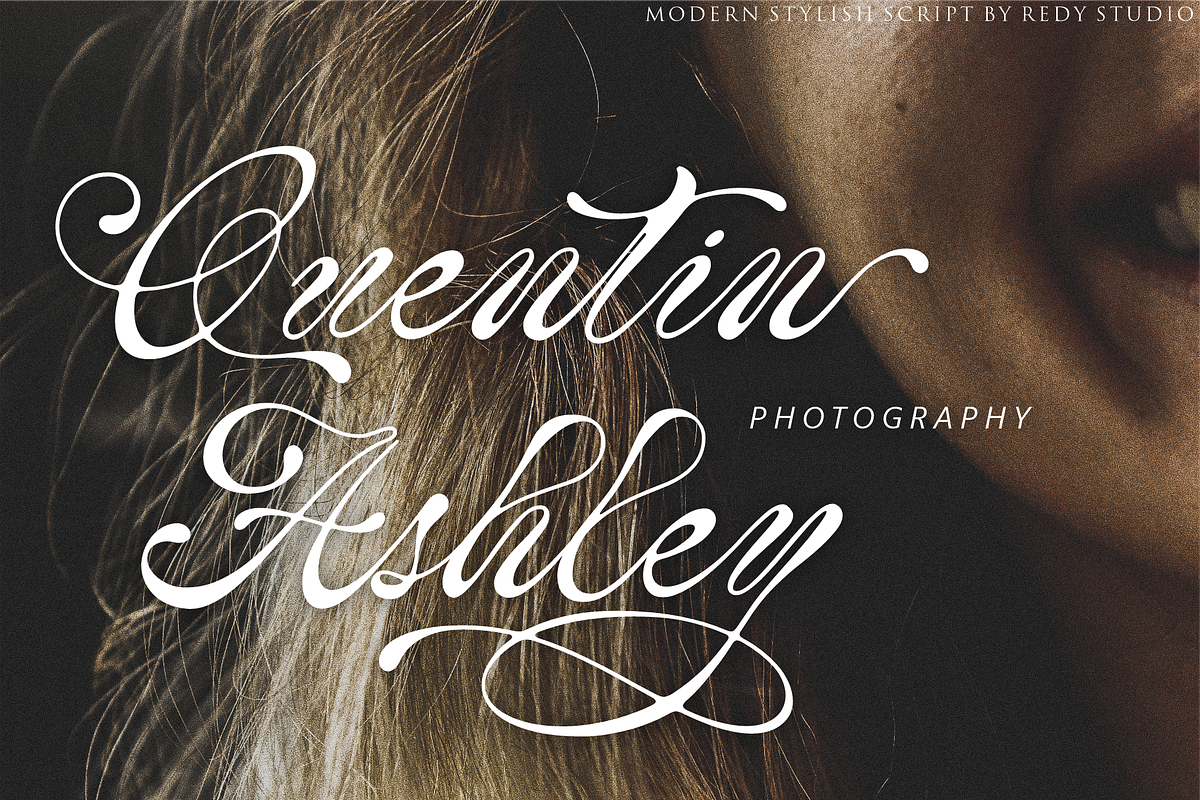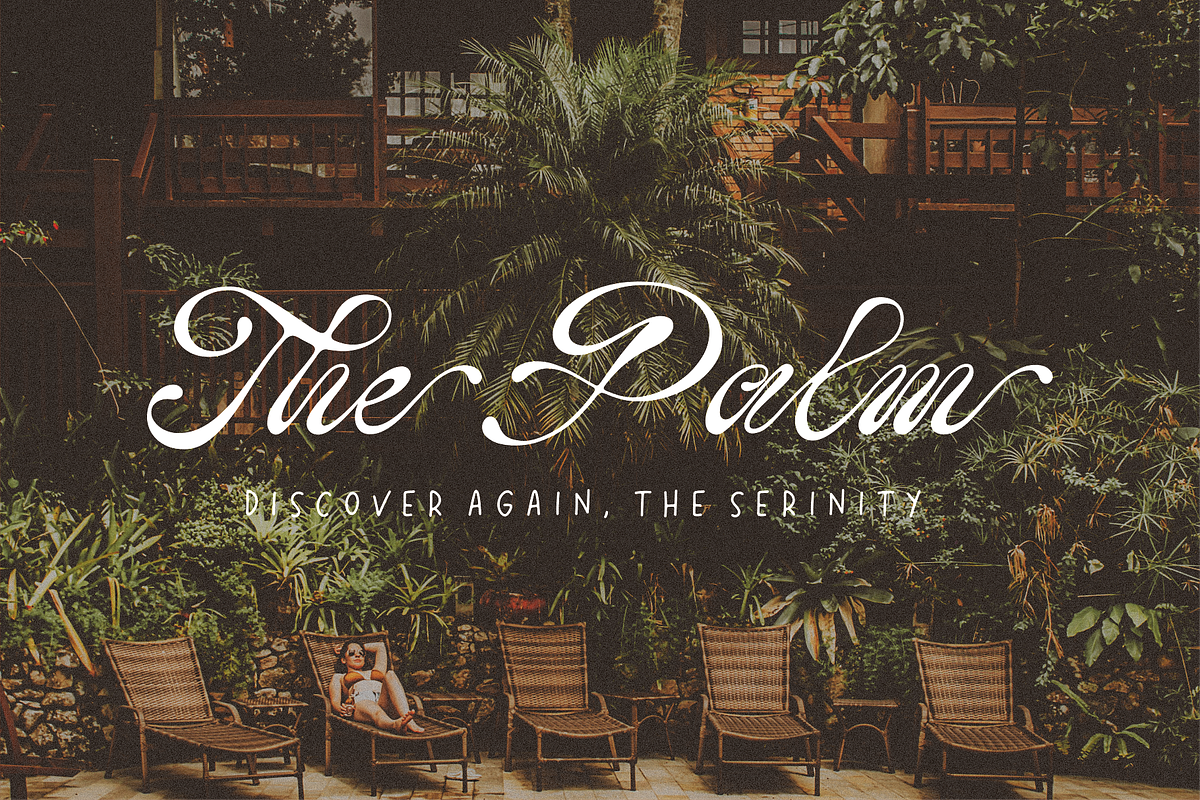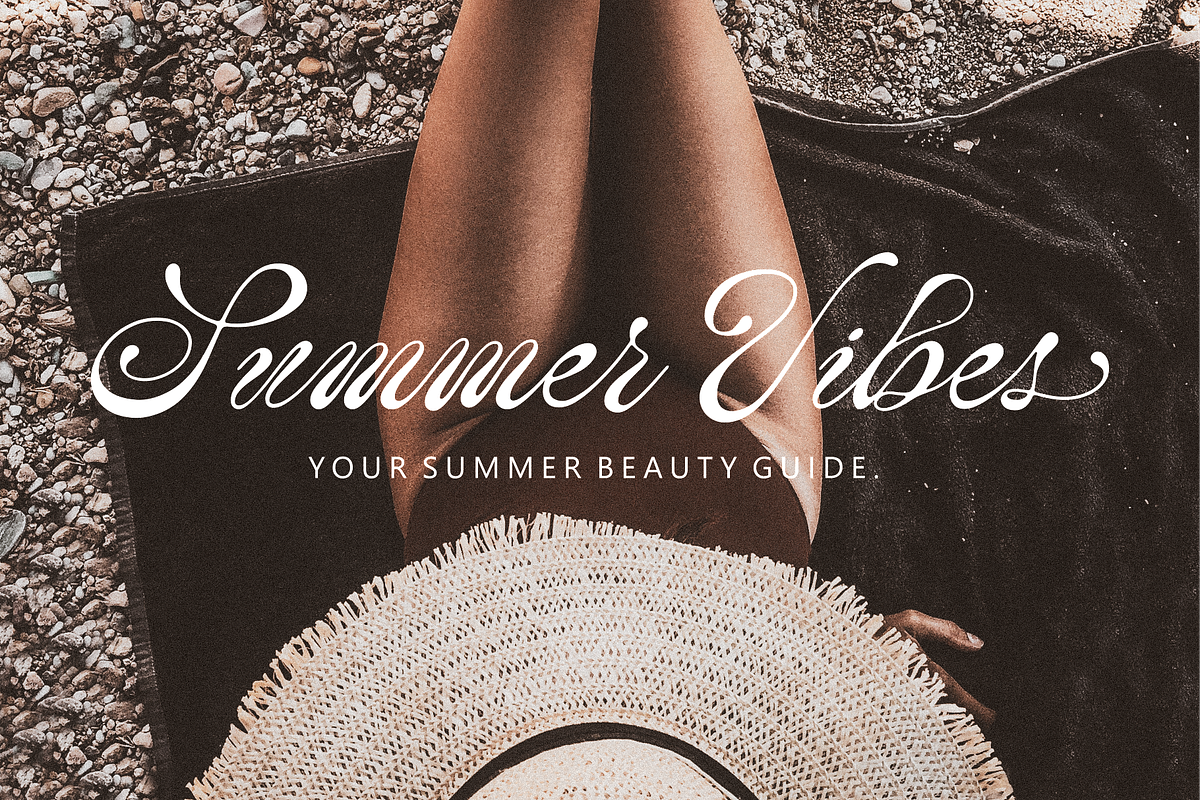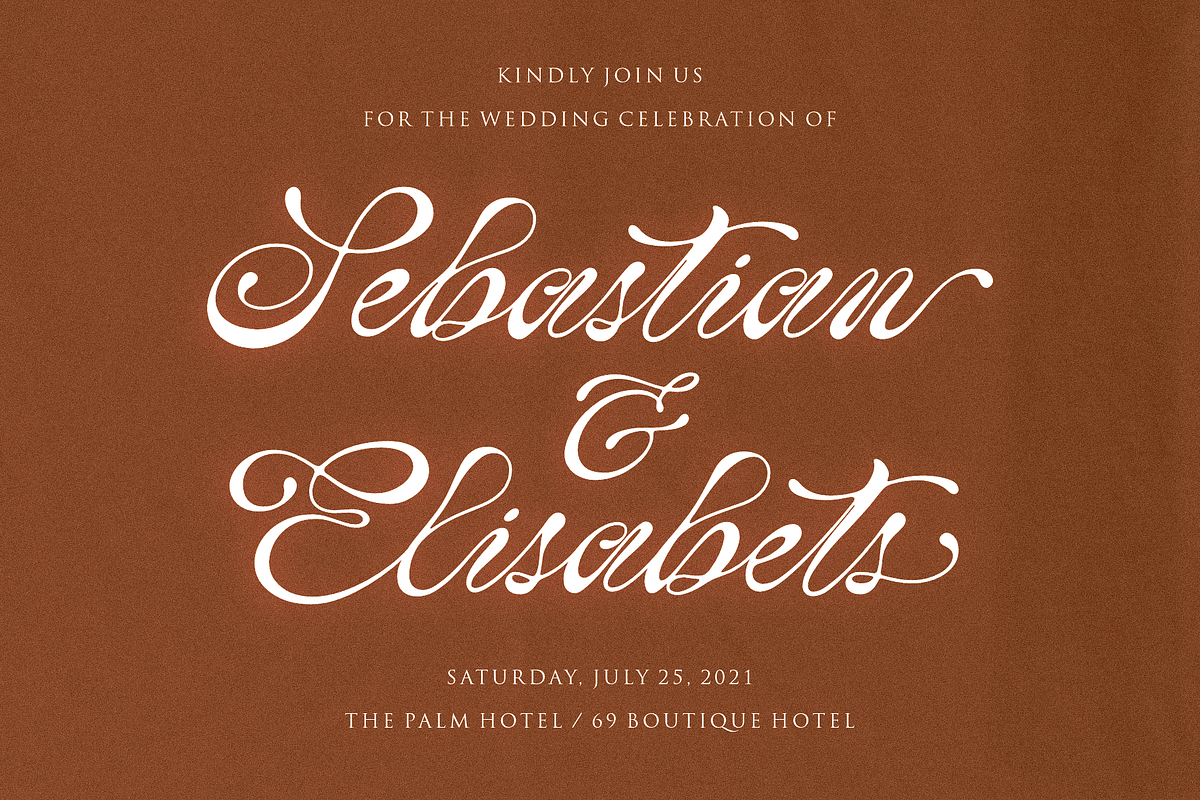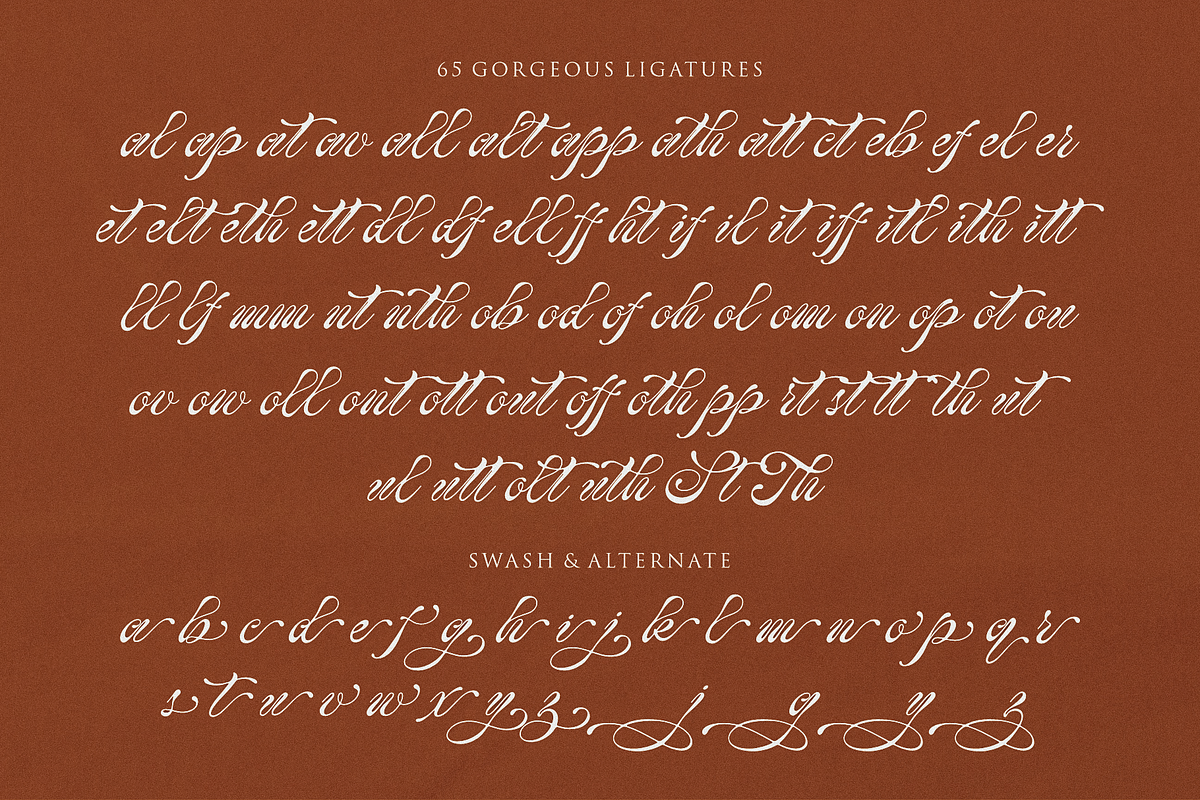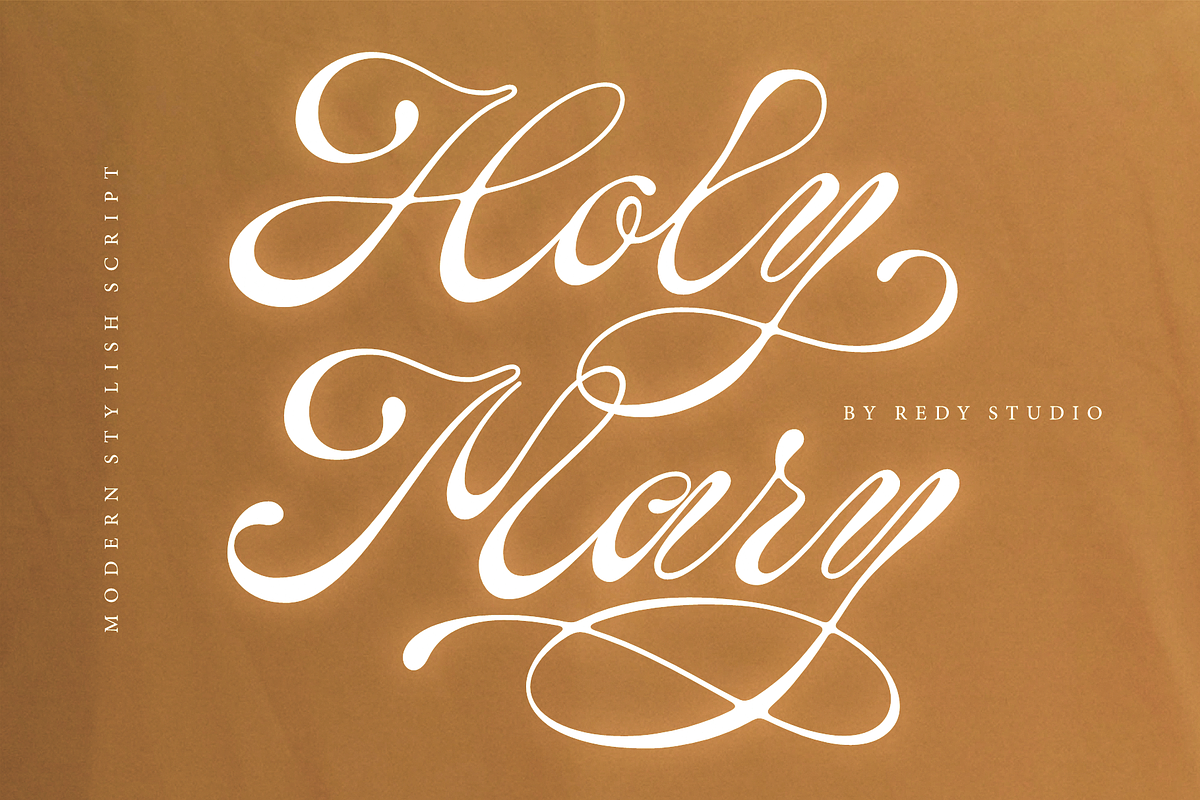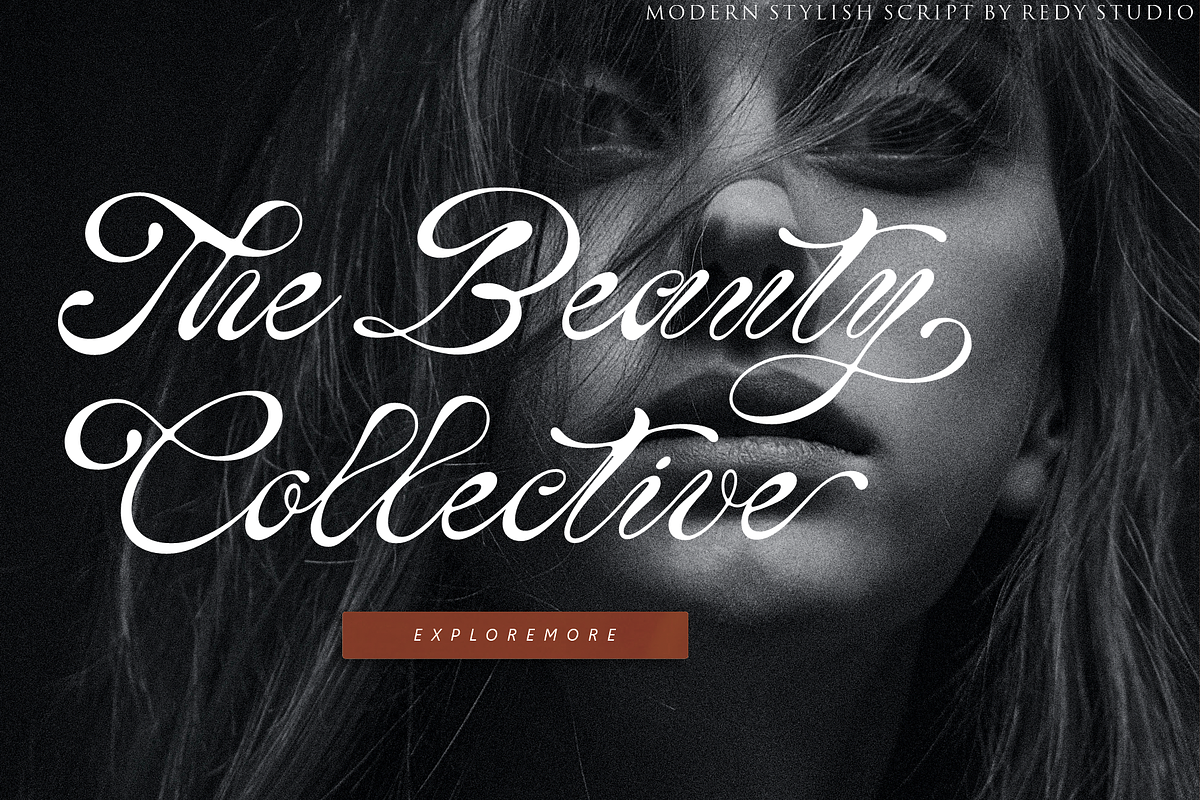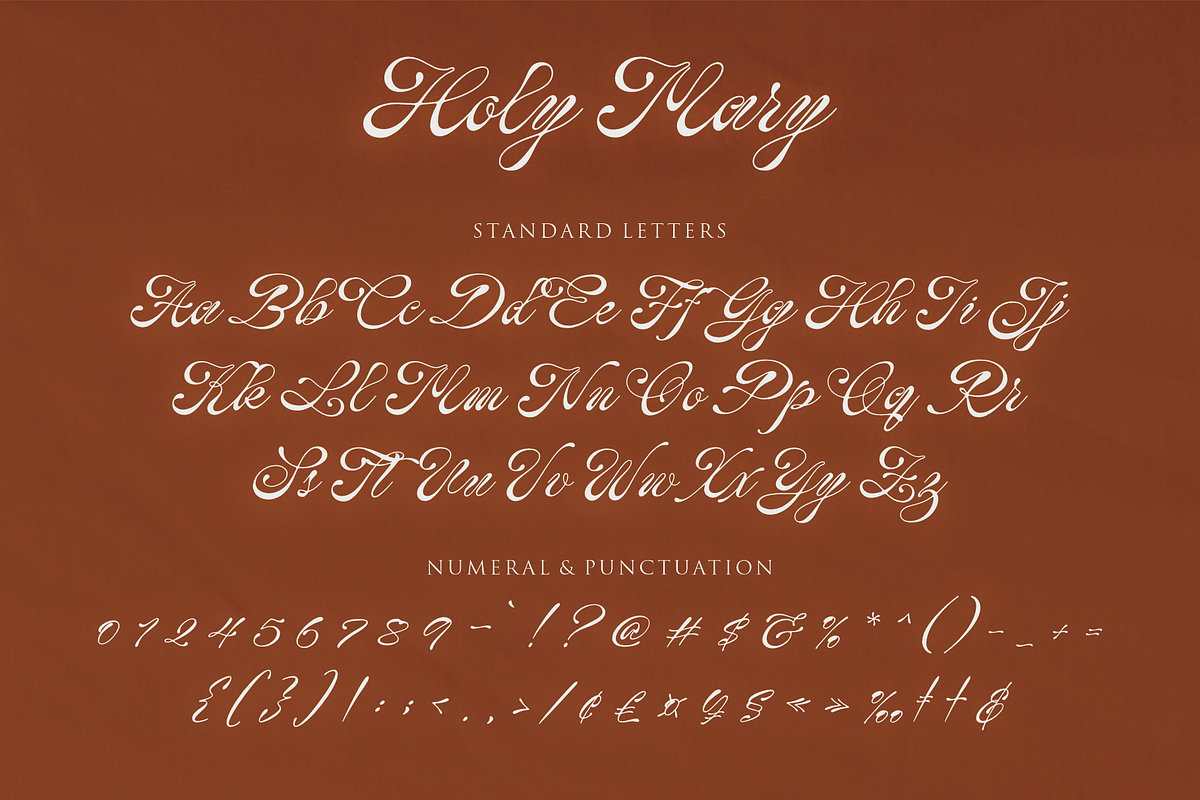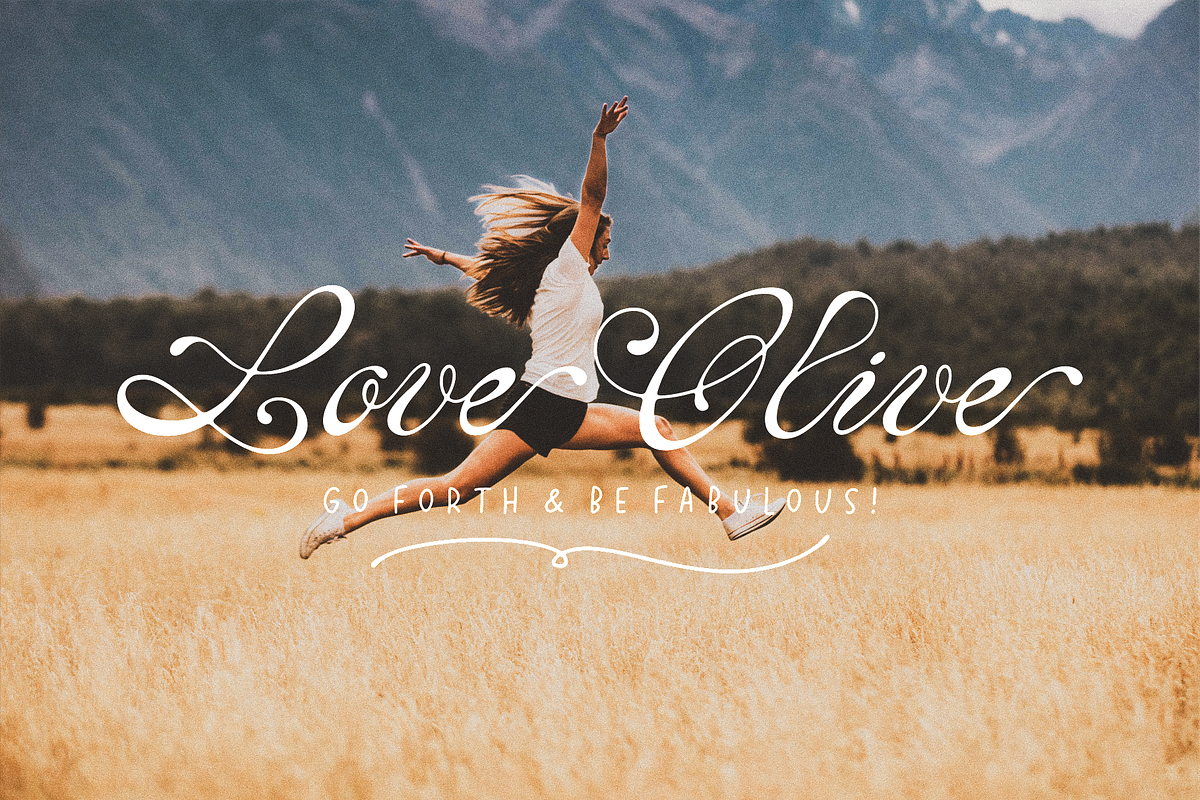
Holy Mary – Modern Calligraphy Font
Take a closer look and see how beautifully soft this calligraphy script is, both elegant and simple. Holy Mary is a lovely calligraphy font that writes beautifully and is easy to read. Holy Mary Font will instantly make your designs stand out from the crowd, adding a unique look and touch to whatever you put it on! Providing the combination of elegance, freedom, and sophistication from its own unique curves and elegant ink flow, along with modern touch makes it perfect for various design needs, for your project needs a feminine or masculine touch, Holy Mary can do it all! Perfectly suited for logo design, wedding invitations, labels, quotes, headings, signage, and more!
Holy Mary features:
- A full set of upper & lowercase characters
- 65 Gorgeous ligatures
- Lowercase ending swashes
- Some alternates in lowercase
- Multilingual symbols